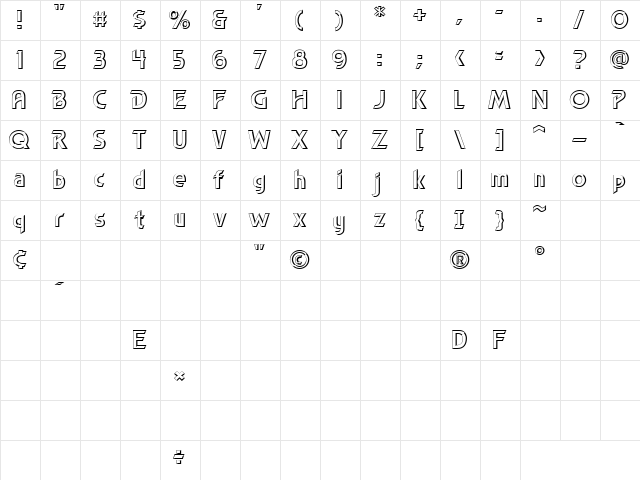
CCTimelord Regular Free Font
CCTimelord Regular
Design Context for CCTimelord
CCTimelord is a composed and adaptable typeface that performs quietly and consistently across a wide range of design contexts.